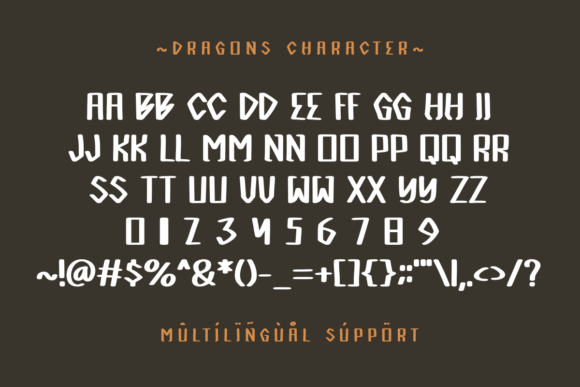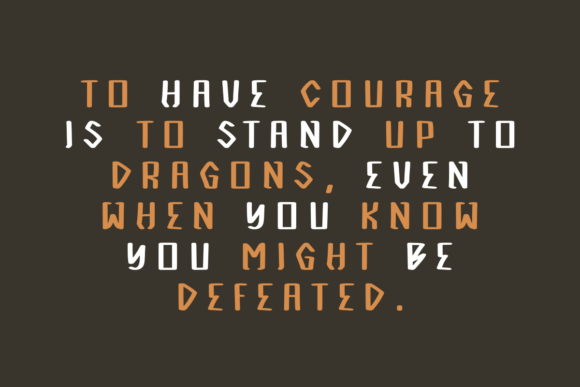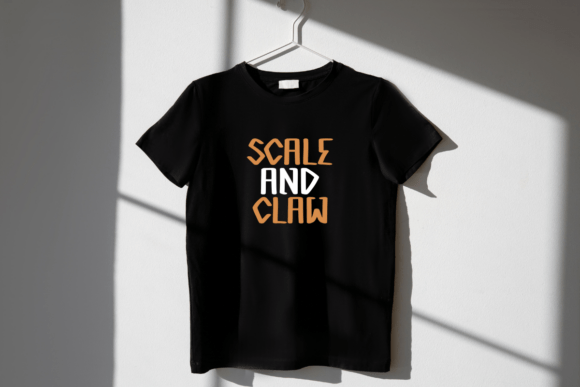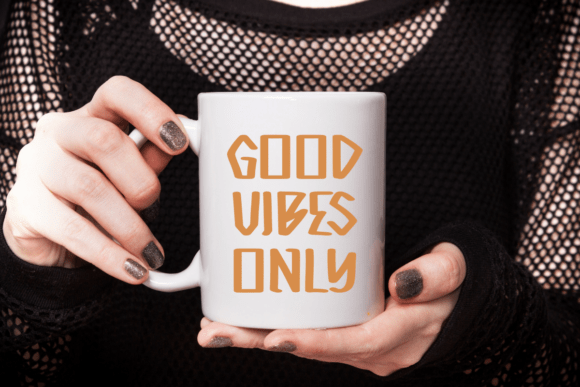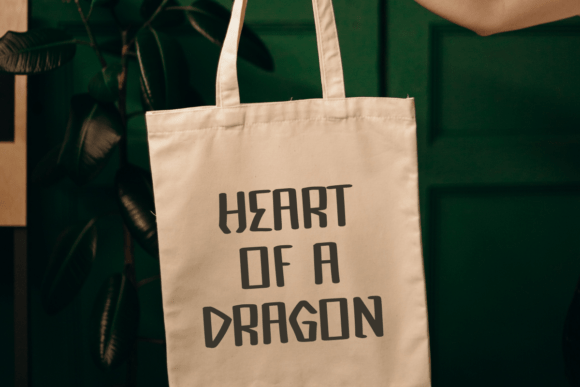
Unleash Your Creativity with Dragons Font: A Bold and Beautiful Display Font
Are you tired of using the same old fonts in your designs? Look no further! Dragons Font is here to take your creative projects to the next level. This fun, bold display font is perfect for adding a touch of excitement and personality to your designs. In this article, we’ll dive into the world of Dragons Font and explore how it can bring your designs to life.
What is Dragons Font?
Dragons Font is a unique and beautiful display font that is sure to make a statement in any design. With its bold and playful style, it’s perfect for creating eye-catching headlines, titles, and graphics. Whether you’re a designer, crafter, or DIY enthusiast, Dragons Font is a must-have in your font collection.
Why Use Dragons Font?
So, why should you use Dragons Font in your designs? Here are just a few reasons:
- Adds a touch of personality: Dragons Font is not your average font. Its bold and playful style adds a touch of personality to any design, making it stand out from the crowd.
- Perfect for headlines and titles: The bold and eye-catching style of Dragons Font makes it perfect for creating headlines and titles that grab attention.
- Versatile: Dragons Font can be used in a variety of designs, from digital graphics to print materials, and even handmade crafts.
How to Use Dragons Font in Your Designs
Using Dragons Font in your designs is easy. Here are a few tips to get you started:
- Pair it with a simple font: Pair Dragons Font with a simple font to create a striking contrast and make your design stand out.
- Use it for headlines and titles: Use Dragons Font for headlines and titles to add a touch of drama and excitement to your design.
- Experiment with colors: Dragons Font looks great in bold and bright colors. Experiment with different colors to find the one that works best for your design.
- Use it in combination with graphics: Dragons Font looks great in combination with graphics, such as illustrations, shapes, and icons.
Inspiration from Dragons Font
Dragons Font is a font that is sure to inspire your creativity. Here are a few ideas to get you started:
- Create a bold and eye-catching poster: Use Dragons Font to create a bold and eye-catching poster that grabs attention.
- Design a beautiful handmade card: Use Dragons Font to add a touch of personality to your handmade cards.
- Make a statement with your social media graphics: Use Dragons Font to make a statement with your social media graphics and stand out from the crowd.
In conclusion, Dragons Font is a fun, bold display font that is sure to bring your designs to life. With its unique and beautiful style, it’s perfect for adding a touch of personality and excitement to your creative projects. Whether you’re a designer, crafter, or DIY enthusiast, Dragons Font is a must-have in your font collection. So why wait? Get inspired by Dragons Font today and take your designs to the next level!